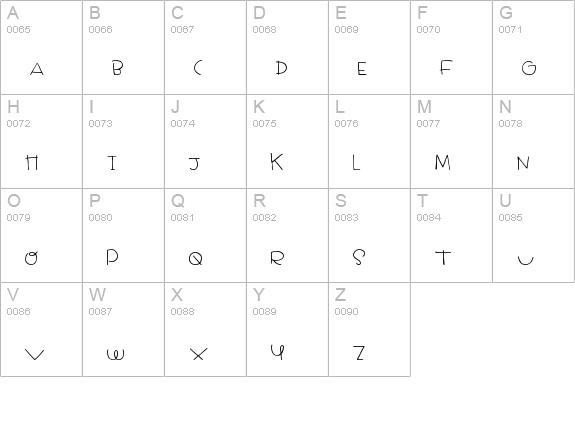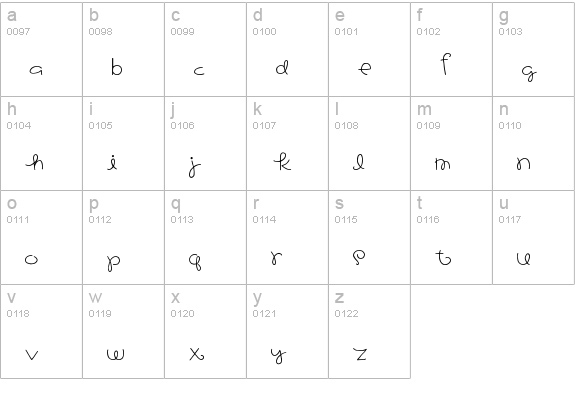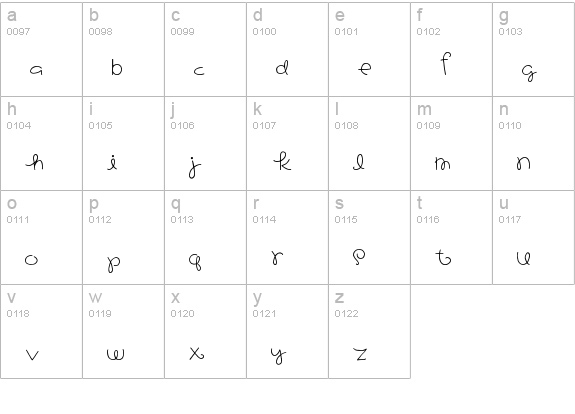
Dreamed About You Font Details
Dreamed About You font is a whimsical and elegant typeface that exudes a sense of dreaminess and charm. Its flowing lines and graceful curves give it a romantic and ethereal feel, perfect for adding a touch of magic to your designs. Whether you're creating wedding invitations, greeting cards, or social media graphics, this font is sure to captivate your audience with its sophisticated allure. What makes Dreamed About You font even more appealing is that it is available for free download at FontsMarket.com. Yes, you read that right - this stunning font can be yours at no cost, allowing you to unleash your creativity without any restrictions. So why wait? Add a touch of enchantment to your projects with Dreamed About You font today!